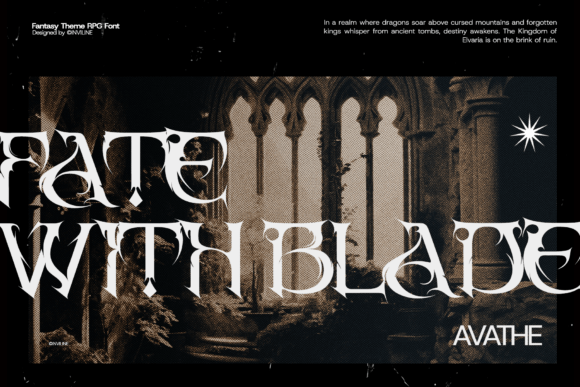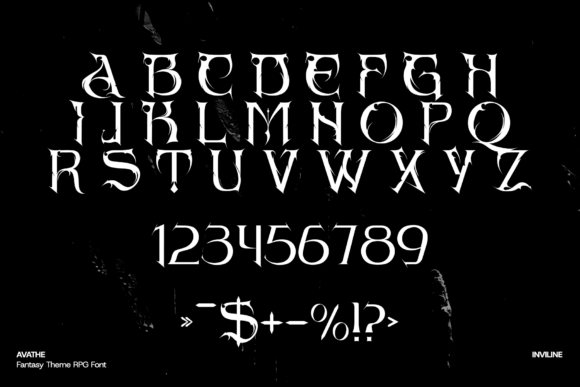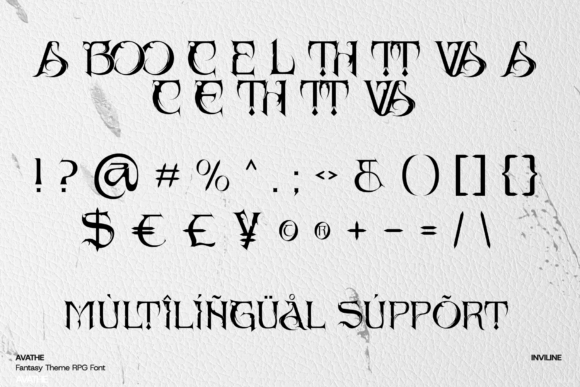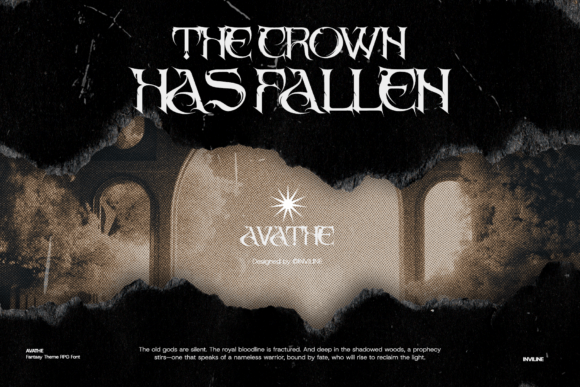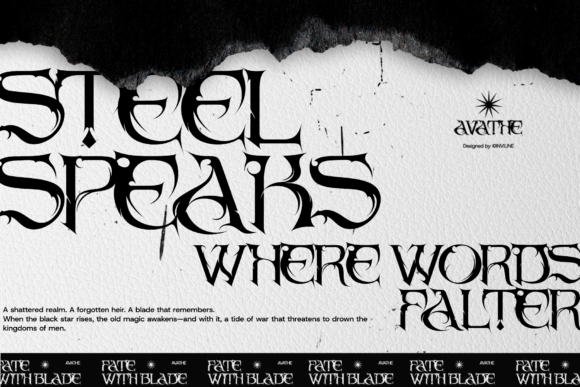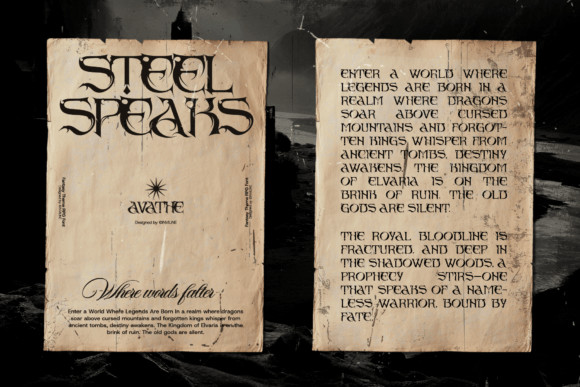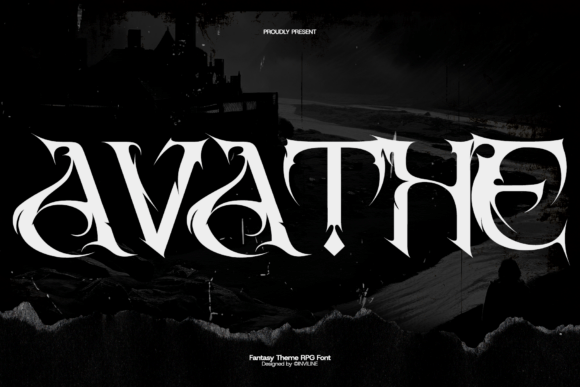
Unleash the Dark Elegance: Discover the Avathe Font
In the realm of typography, few fonts capture the essence of fantasy and mystery as effectively as Avathe. This gothic-inspired display font is a masterful blend of medieval scripts and dramatic elegance, making it the perfect choice for designers seeking to infuse their projects with a sense of ancient legends and dark magic.
The Inspiration Behind Avathe
Avathe’s design is rooted in the ornate serifs and dark curves of traditional gothic lettering. Each letter is meticulously crafted to evoke a sense of intensity and mysticism, reminiscent of medieval manuscripts and ancient tomes. The font’s sharp, ornamental serifs and ominous tone make it an ideal choice for projects that demand a bold and mysterious character.
Perfect for Fantasy and Gothic Designs
Avathe is specifically designed for use in fantasy-themed projects, such as RPG game titles, black metal band logos, book covers, and movie posters. Its unique blend of elegance and darkness makes it an excellent fit for designers seeking to create a lasting impression. Whether you’re working on a fantasy role-playing campaign or branding a gothic fashion line, Avathe delivers an unforgettable impact.
Crafting an Epic Narrative with Avathe
Each letter in the Avathe font is carefully crafted with flair, making it perfect for projects that seek to evoke epic fantasy narratives. The font’s sharp serifs and dark curves create a sense of drama and tension, drawing the viewer into the world of ancient legends and dark magic. With Avathe, designers can create a sense of immersion and mystery, captivating their audience and leaving a lasting impression.
Key Features of Avathe
- Sharp Ornamental Serifs: Avathe’s serifs are intricately designed to add a touch of elegance and sophistication to any design.
- Dark Curves: The font’s dark curves create a sense of mystery and intensity, perfect for evoking the essence of ancient legends and dark magic.
- Ominous Tone: Avathe’s overall tone is ominous and foreboding, making it ideal for projects that demand a sense of drama and tension.
- Medieval Inspiration: The font’s medieval inspiration is evident in its intricate lettering and ornate serifs, adding a touch of authenticity to any design.
Using Avathe in Your Designs
Avathe is an incredibly versatile font, suitable for a wide range of design applications. Here are a few ideas to get you started:
- RPG Game Titles: Use Avathe to create bold and mysterious game titles that evoke a sense of epic fantasy and adventure.
- Black Metal Band Logos: Avathe’s dark and ominous tone makes it a perfect fit for black metal band logos, adding a touch of intensity and mysticism to any design.
- Book Covers: Use Avathe to create eye-catching book covers that evoke a sense of mystery and intrigue, perfect for fantasy and horror novels.
- Movie Posters: Avathe’s dramatic elegance makes it an excellent choice for movie posters, adding a touch of sophistication and glamour to any design.
| Font Name | Avathe Font |
| Author | Inviline |
In conclusion, Avathe is a powerful and evocative font that is sure to make a lasting impression on designers and crafters. Its unique blend of medieval inspiration, sharp ornamental serifs, and dark curves makes it the perfect choice for projects that demand a sense of intensity, mysticism, and epic fantasy narratives. Whether you’re working on a fantasy role-playing campaign or branding a gothic fashion line, Avathe delivers an unforgettable impact.